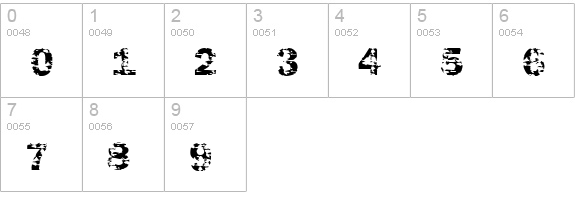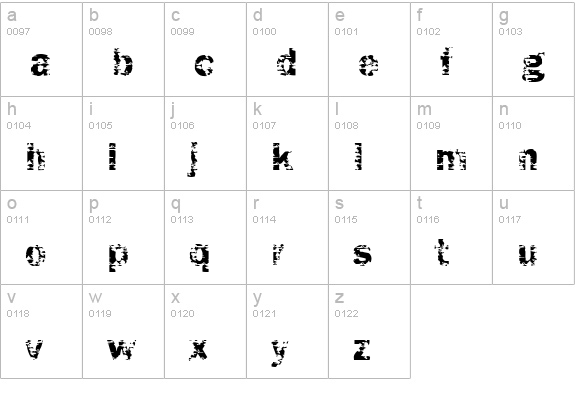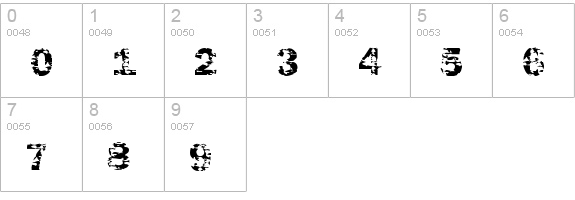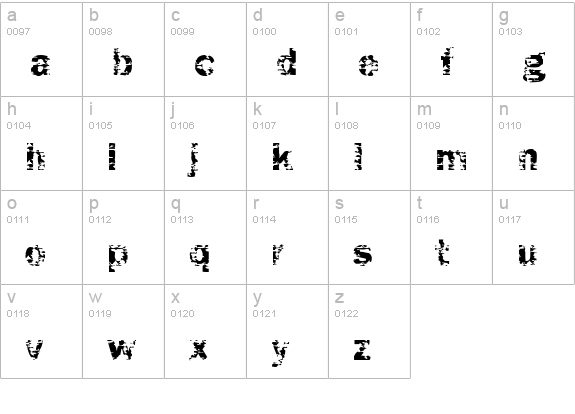
Funky04-Bold is a strong, high-contrast variant in the Funky04 typeface family \xE2\x80\x94 well suited to headlines, attention-grabbing titles, and strong calls-to-action.
Funky04-Bold font is a vibrant and energetic typeface that exudes a playful and funky vibe. Its bold and eye-catching design makes it perfect for headers, titles, and other attention-grabbing text. This font is a versatile choice for projects that require a touch of personality and flair. Whether you're creating posters, flyers, or social media graphics, Funky04-Bold font will make your text stand out in style. Best of all, Funky04-Bold font is completely free to download at FontsMarket.com. You can easily add this dynamic font to your collection and start using it in your designs right away. Don't miss out on the opportunity to enhance your projects with this fun and modern typeface!